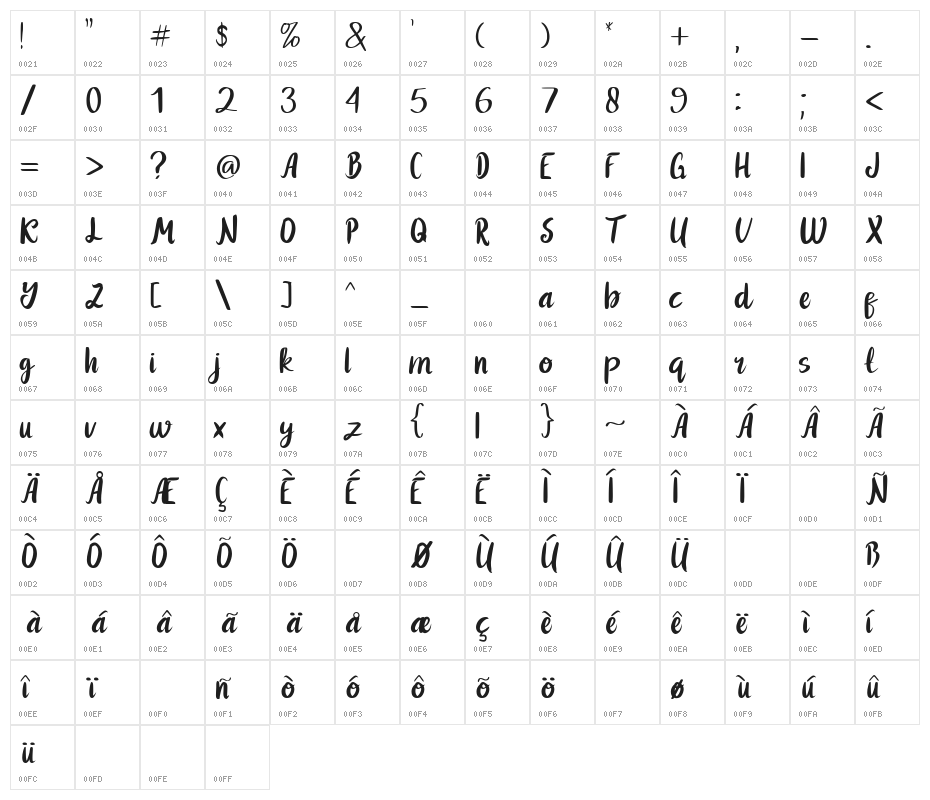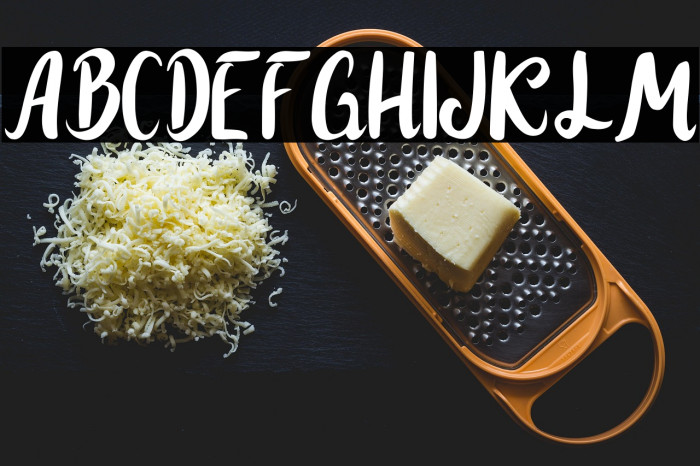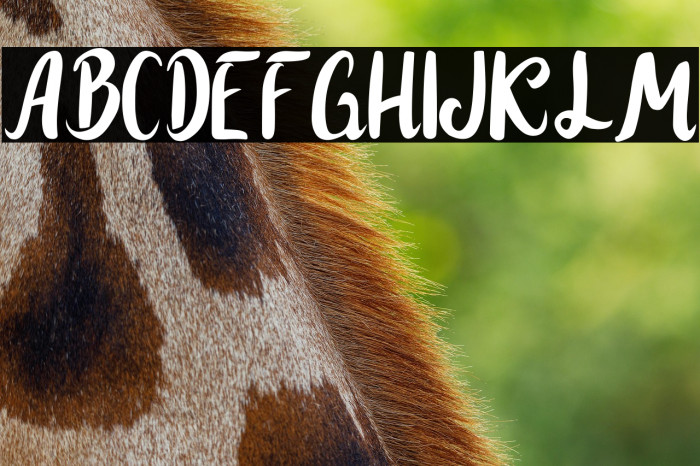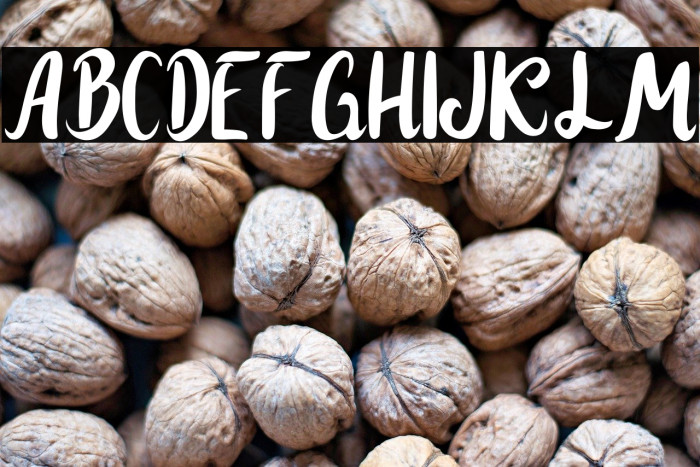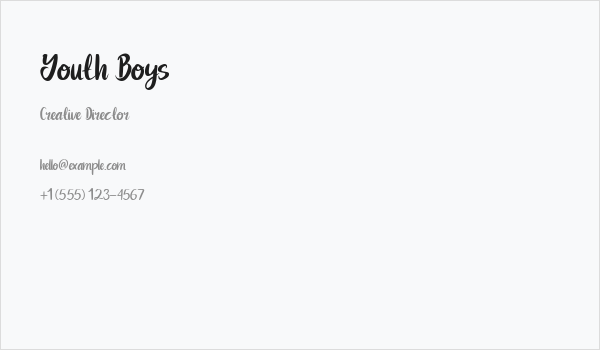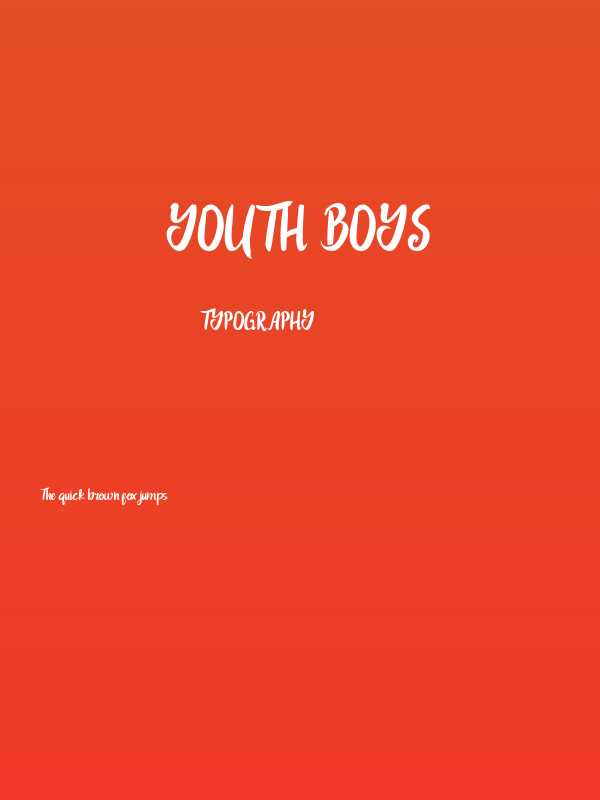
Youth Boys Font
Youth Boys Description
This font features a playful and energetic script style, characterized by its bold and flowing letterforms. The uppercase letters are slightly more structured, while the lowercase letters exhibit a more casual, handwritten appearance. The numbers maintain the same lively style, ensuring consistency throughout. Special characters are creatively integrated, adding to the font's overall charm. The strokes are thick and consistent, providing a strong visual impact, while the slight slant adds a dynamic feel. This font is perfect for projects that require a youthful and vibrant touch.
| Proposed Projects | Ideal for children's book covers, playful branding, greeting cards, and social media graphics. |